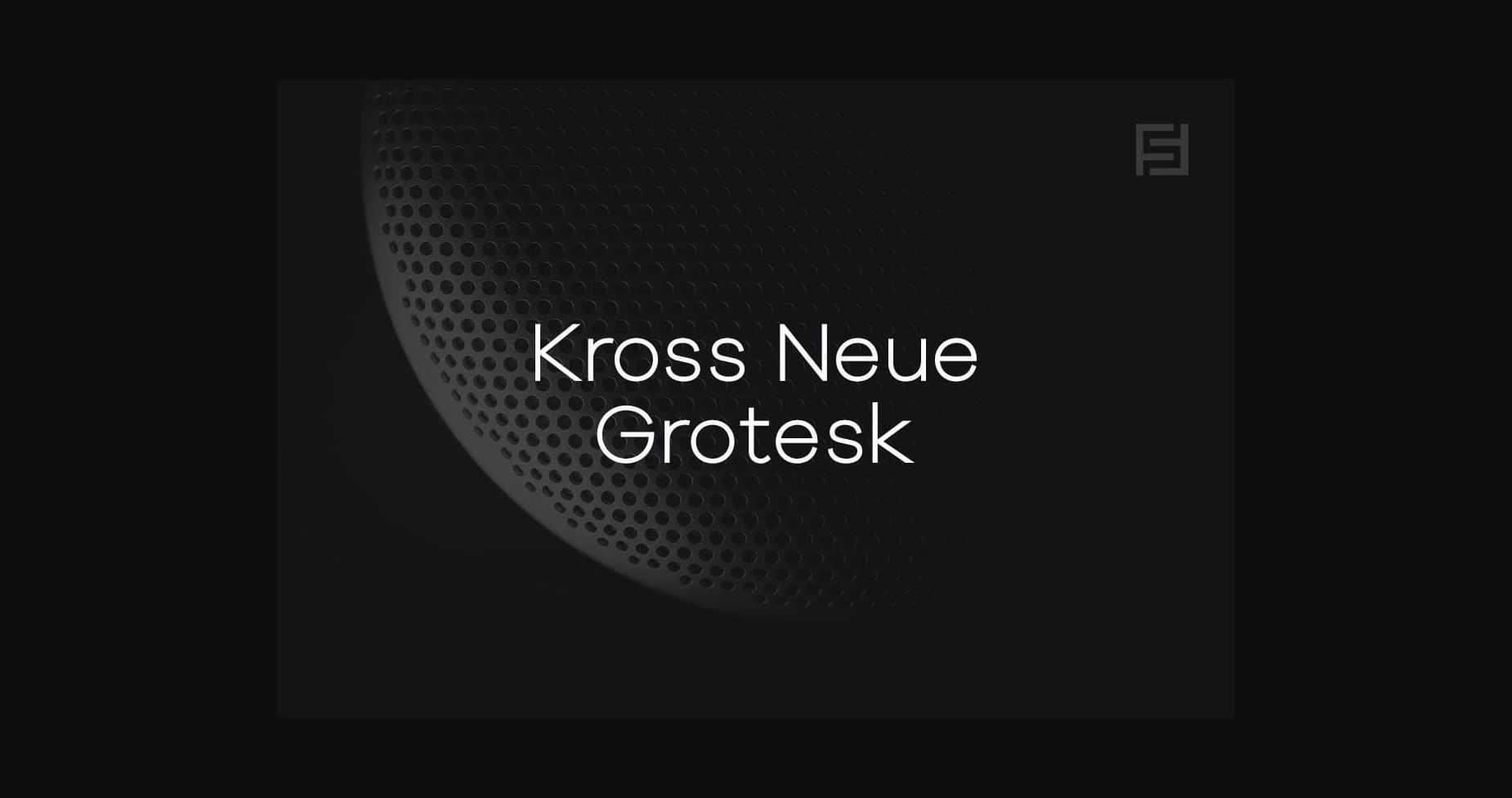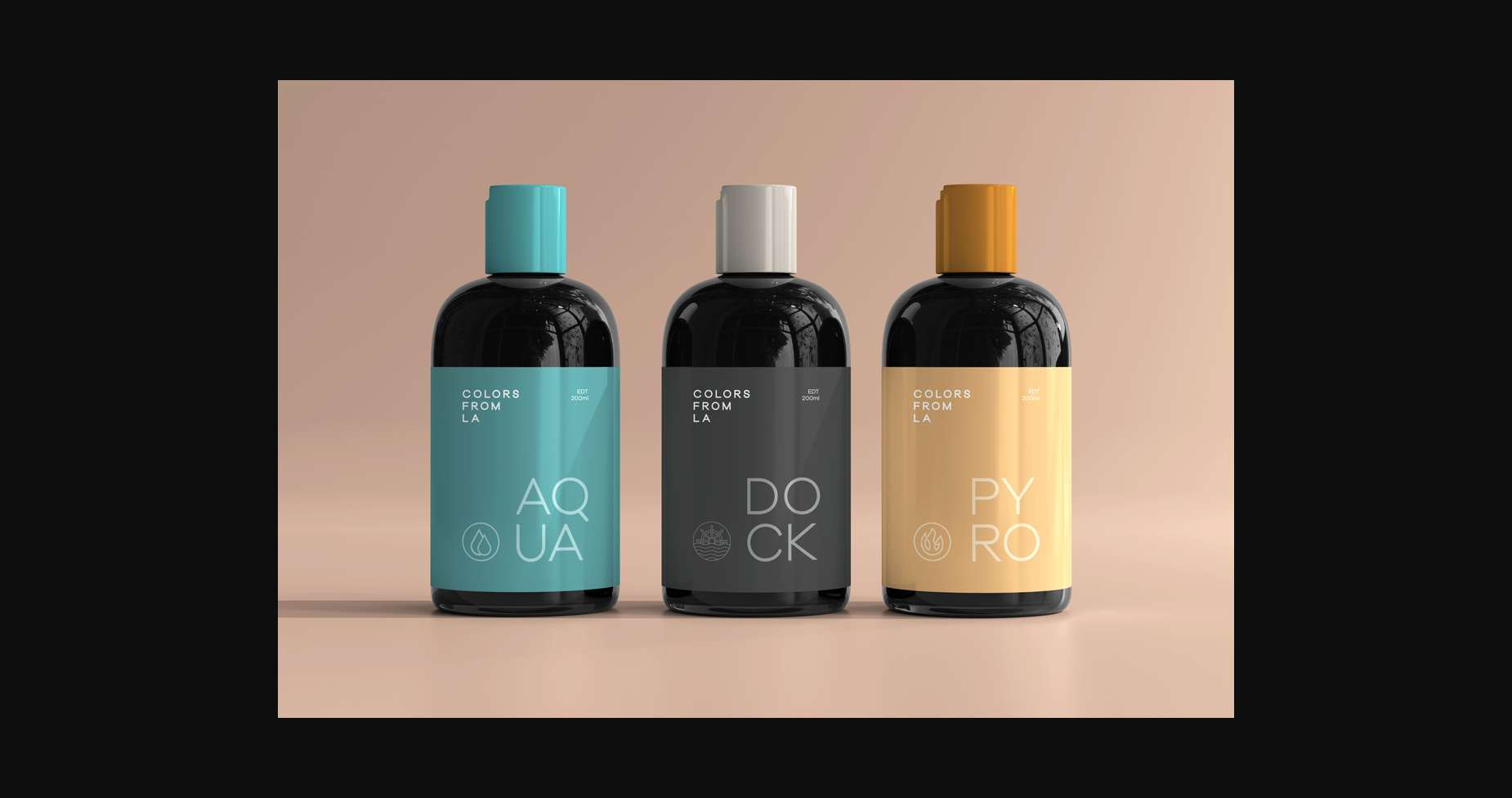
About Kross Neue Grotesk Font
Kross Neue Grotesk is an organic and cool looking sans serif font. It is suitable for logotype, headline font, in corporate identity, brand identity, apparel industry, poster, music, movie, game, magazine, book, comic, cartoon, YouTube, Instagram, website, or any of your creative design projects.